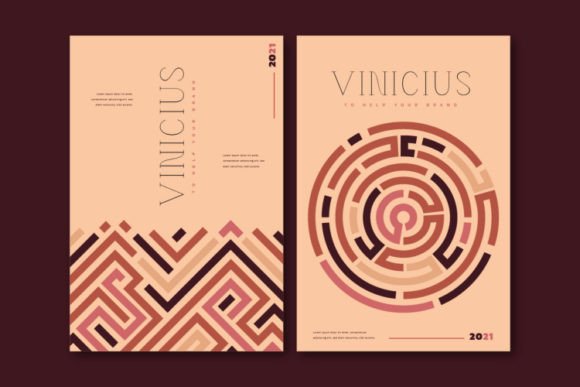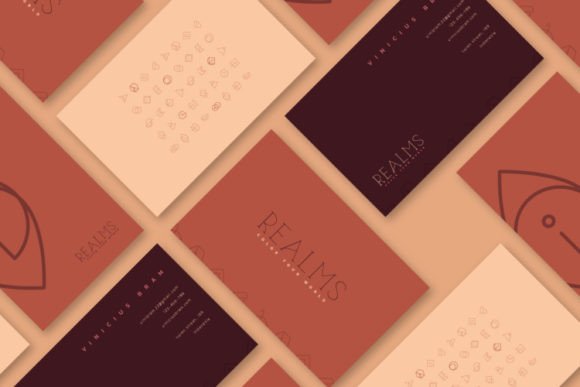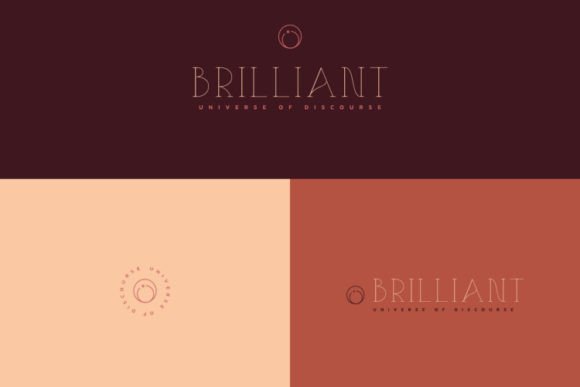
Introduction to Serpens Font
Serpens is an elegant and minimalist display font.
With its stylish and graceful look, this font will add a luxury spark to any design project that you wish to create .
Key Features of Serpens Font
Why Choose Serpens Font?
Serpens Font offers exceptional quality and versatility, making it a valuable addition to your design toolkit. Whether you’re creating for personal projects or commercial use, Serpens Font delivers professional results.